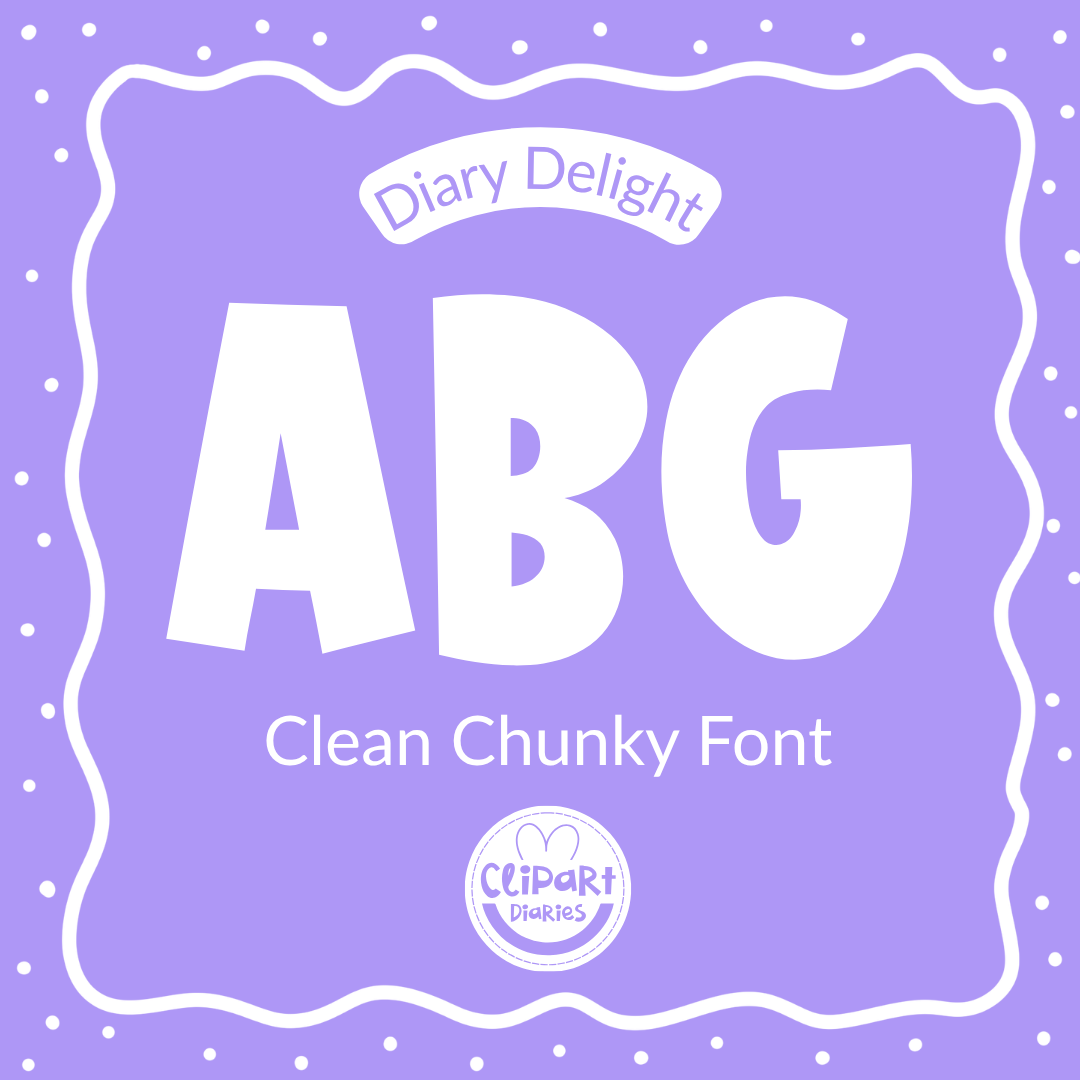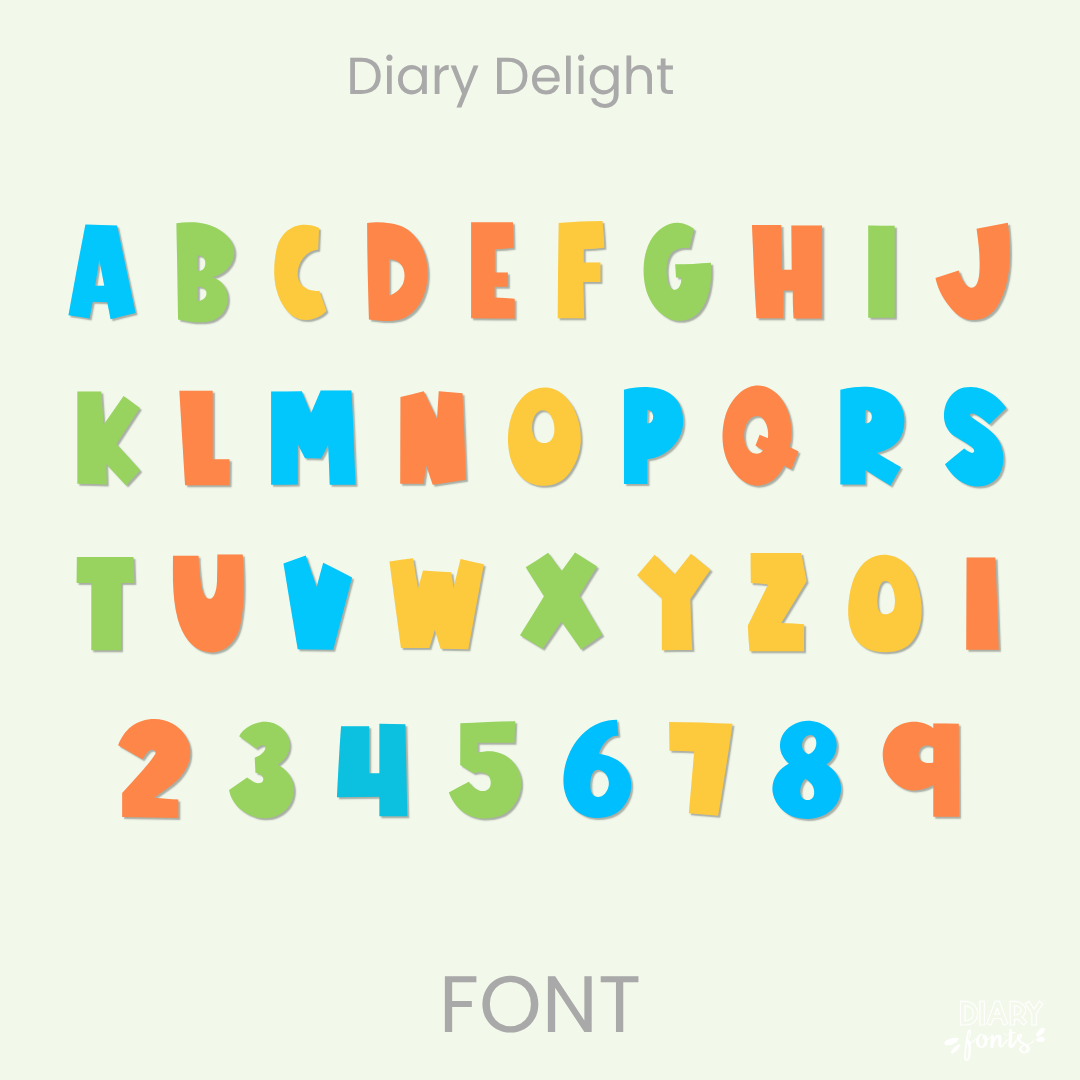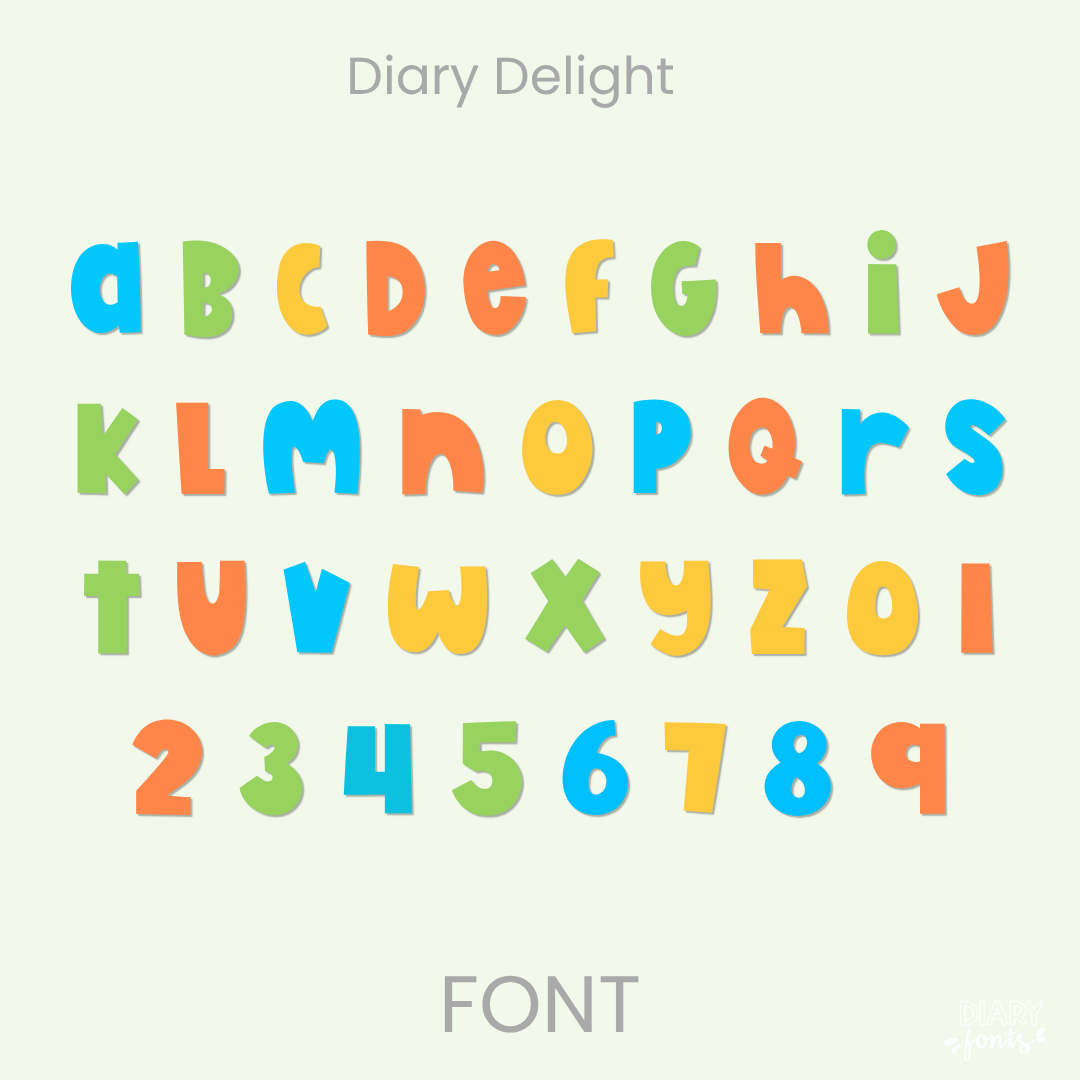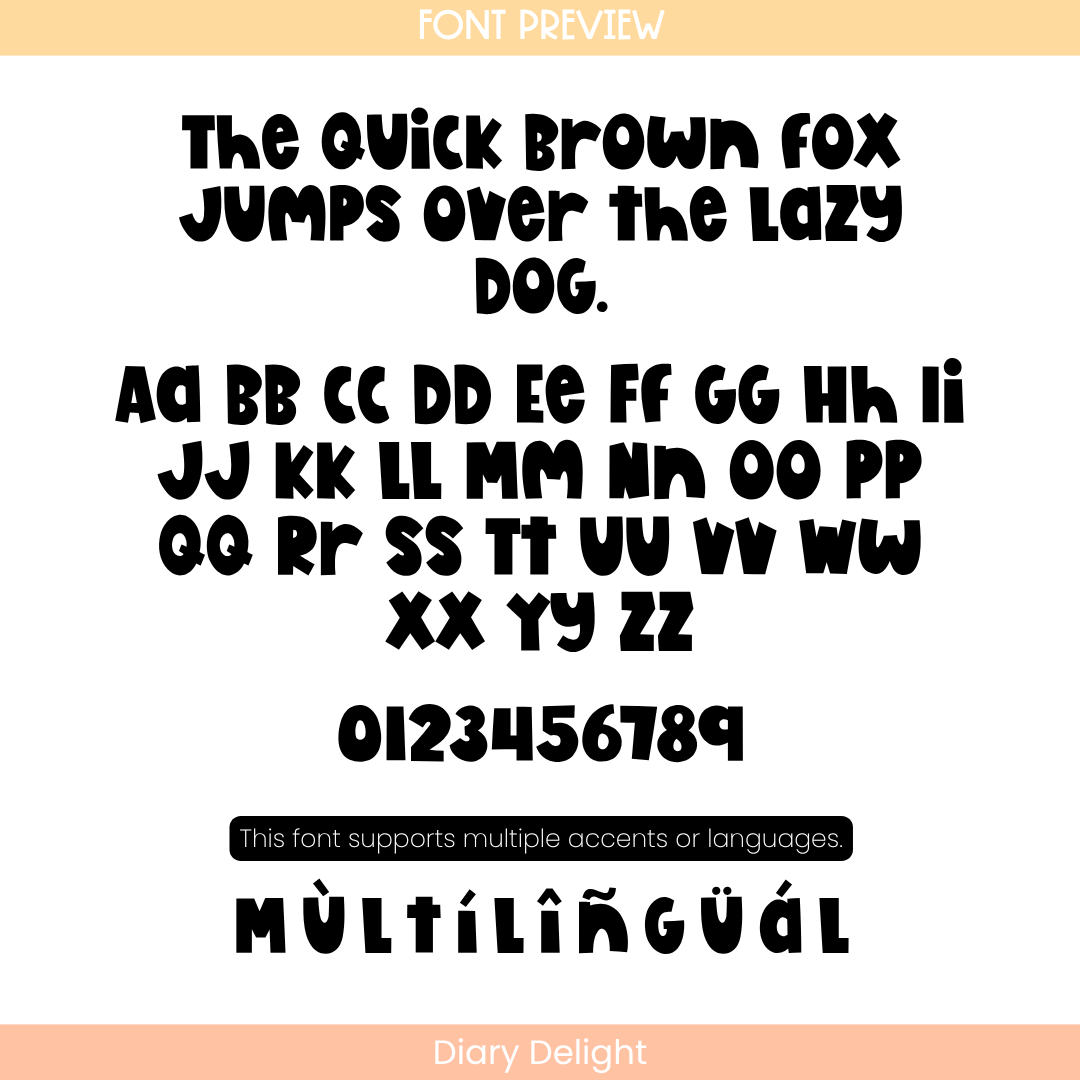
If you want to give your projects a cheerful and friendly look, Diary Delight is an excellent choice. It features thick, solid characters with a neat, hand-stamped layout that stays perfectly clear and easy to read. This makes it highly legible for students while still feeling playful. It is especially effective for bold headers, classroom labels, and primary school resources. The font includes a full set of uppercase and lowercase letters, numbers, and multiple accents to support different languages. It is ready for use in Canva, MS Office, and Adobe Apps, and it works perfectly with iPad apps like GoodNotes and Procreate. Whether for personal classroom use or commercial resources, this font adds a soft and approachable aesthetic to your work.